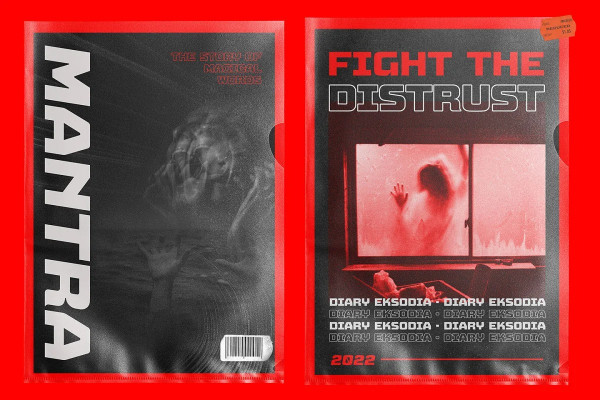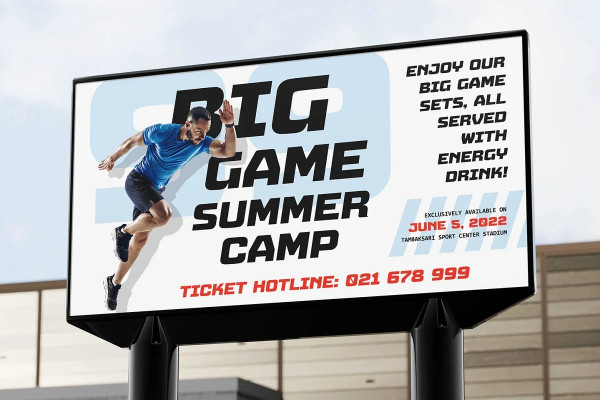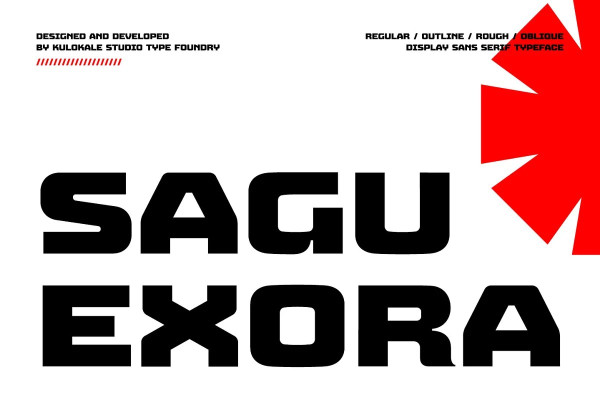
Sagu Exora Font
Sagu Exora Font is an sans serif display font, and with a style that is very different from the others.
Sagu Exora Font is well-suited for posters, social media, headlines, magazine titles, clothing, large print formats – and wherever you want to be seen. Inspired by the style of design that is currently popular, and this is the answer to all the needs of every idea that you will pour in this modern era.